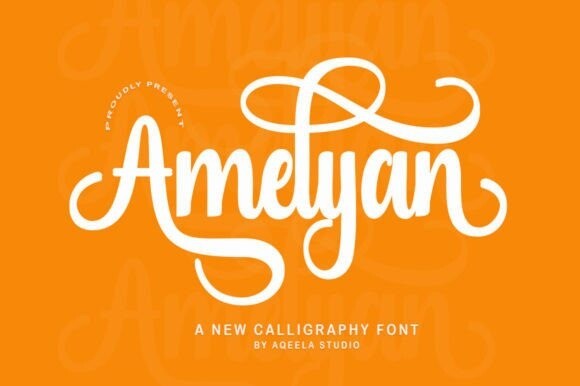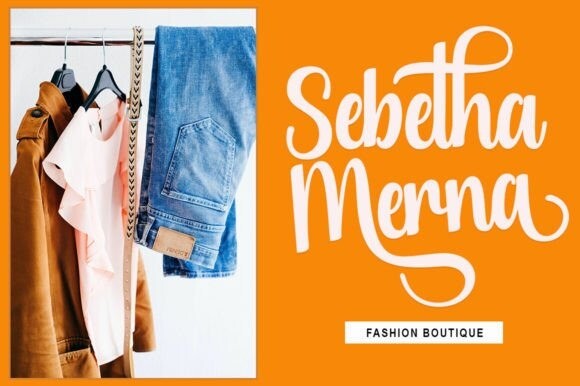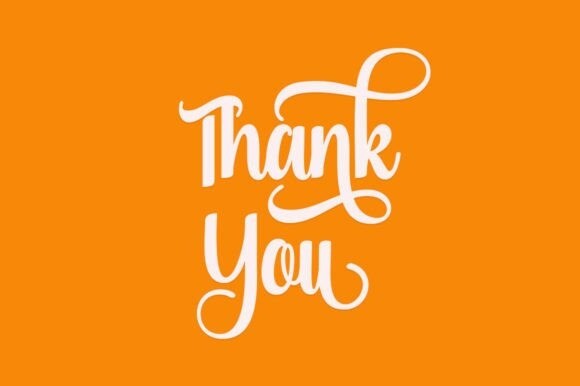
Amelyan Font
Brother Font is a sweet and friendly calligraphic font. Fresh and clean, this font is ideal for writing wedding invitations, cards, or any other design that might need a fun touch!